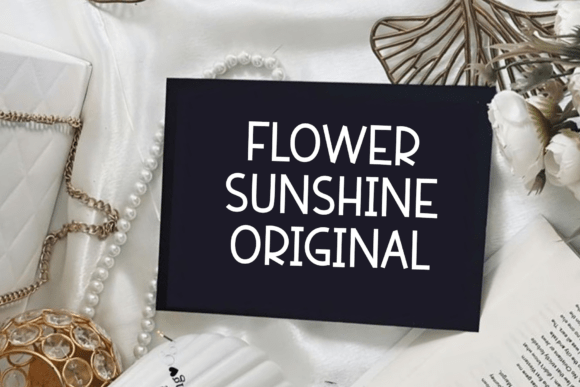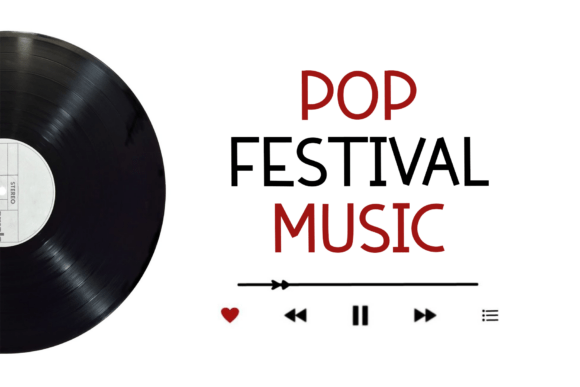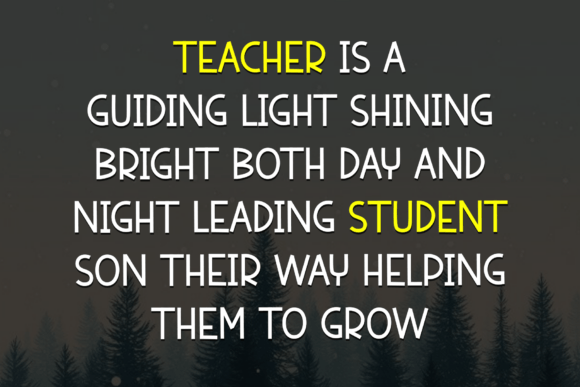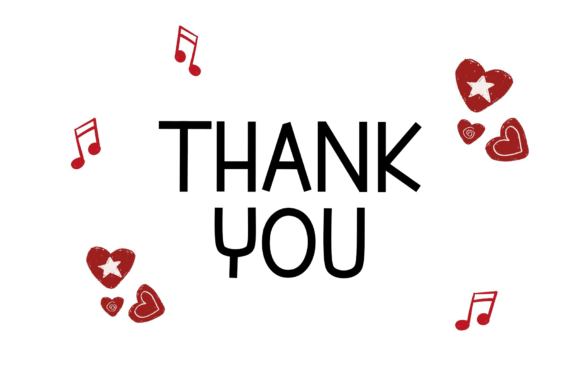
Introduction to Sign off Font
Do you ever get that creative itch, where you just can’t wait to dive into a new project and unleash your imagination? For designers, this feeling is a familiar sensation, and one that can lead to some truly amazing work. Whether you’re working on a custom sublimation design, a boutique brand, or a personalized gift, the right font can make all the difference.
That’s where the Sign off Font comes in – a stunning, modern, and stylized handwritten sans-serif font that’s sure to elevate any creative project. With its smooth, fluid strokes and lovely ornamental curves, this font adds a touch of elegance and sophistication to any design. And with its clean connections and consistent weight, it’s the perfect choice for designers looking for a high-quality, highly stylized font that’s both beautiful and functional.
Key Features of Sign off Font
- High-quality design resource with a unique and creative touch, perfect for any project.
- Sign off Font is a versatile design resource that can be used in a variety of creative projects, from logos to signage.
Honest Review: Sign off Font
I recently came across the Sign off Font and was excited to dive in and see what it had to offer. As a designer, I’m always on the lookout for high-quality design resources to elevate my creative projects.
Here are some of the things that work well for the Sign off Font:
- ✨ High-quality font with a transparent background, making it perfect for use on any background.
- ✨ The font is very easy to use and can be customized to fit the needs of any creative project.
However, there are a few limitations to the Sign off Font that are worth noting:
- ⚠️ The font may not be suitable for all types of projects, particularly those that require a lot of bold or heavy typography.
- ⚠️ The font may not be as versatile as some other design resources on the market.
Overall, I was impressed with the Sign off Font and think it’s a great addition to any designer’s toolkit. While it may have some limitations, it’s a high-quality font that’s perfect for a variety of creative projects.
How to Use Sign off Font
The Sign off Font is a high-quality, versatile design resource that can elevate any creative project. With its transparent background, it’s perfect for adding a professional touch to your designs.
Tips for Getting the Most Out of Sign off Font
To maximize the impact of the Sign off Font, experiment with different font sizes, colors, and styles. You can also combine it with other design elements, such as graphics or textures, to create a unique look.
Common Use Cases for Sign off Font
The Sign off Font is perfect for a variety of creative projects, including business cards, brochures, posters, and social media graphics. You can also use it for personal projects, such as blog headers or website titles.